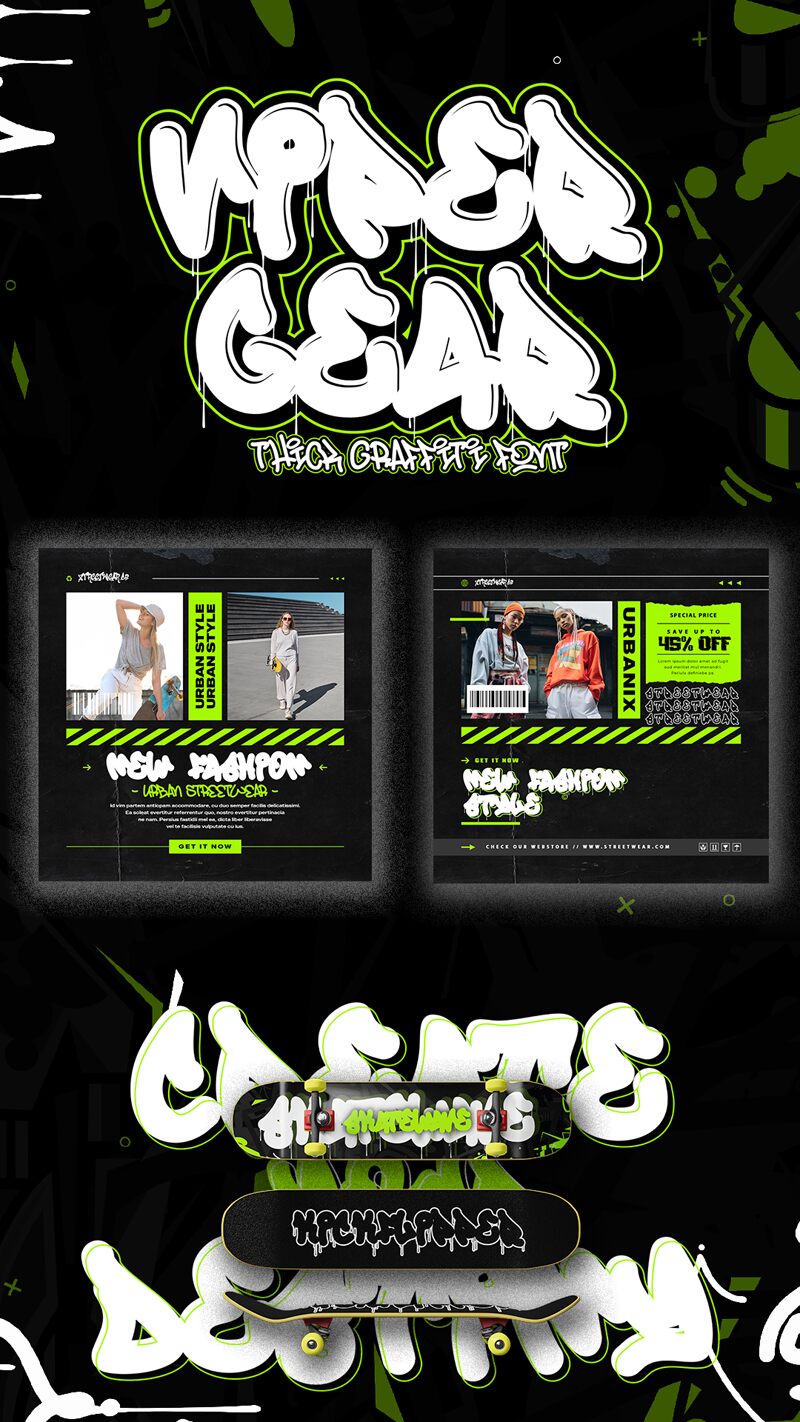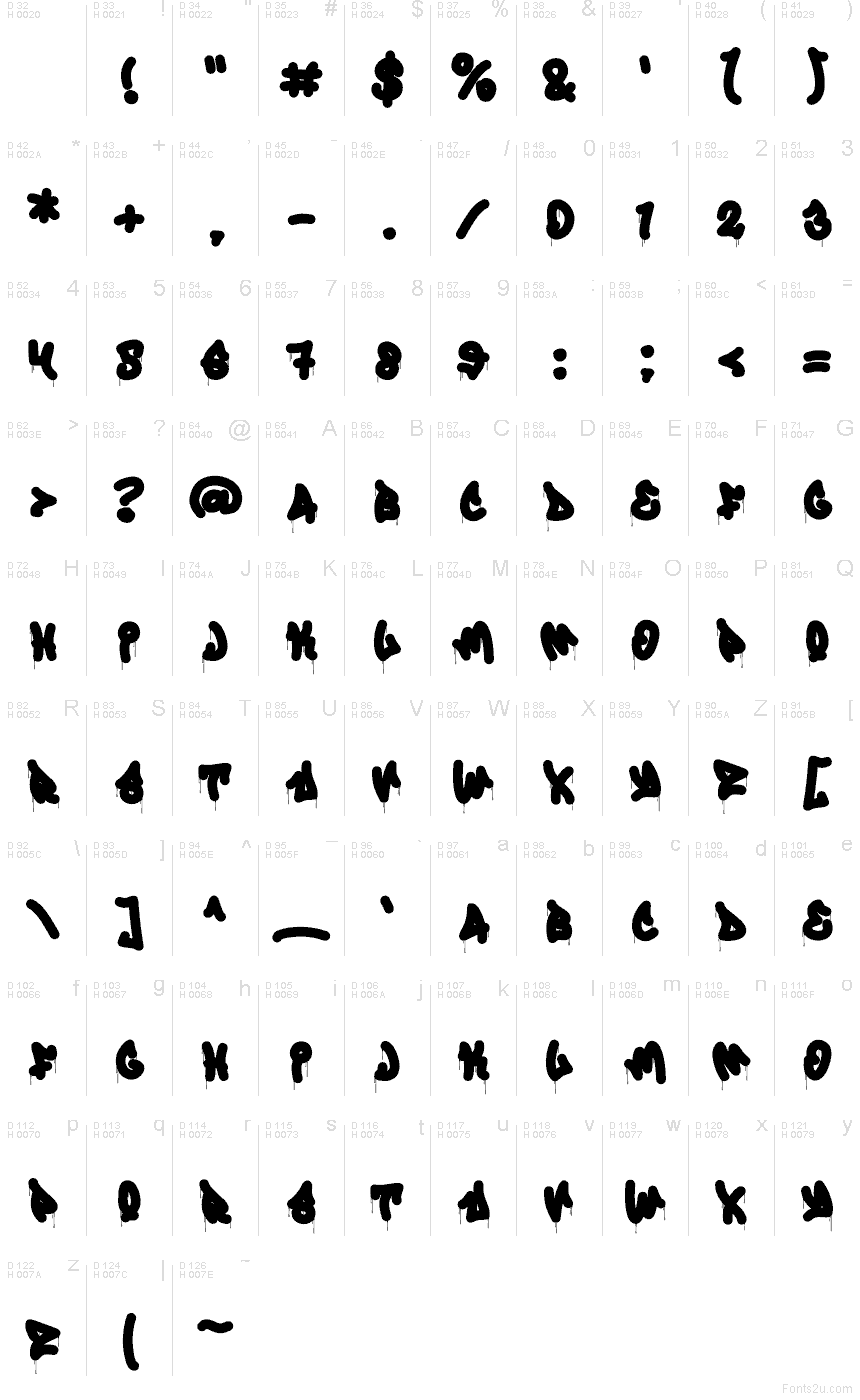
Viper Gear - Drip
Viper Gear - Drip font by Cikareotype Studio is a free graffiti font that hits like fresh paint on a concrete wall. Thick, blobby letterforms swell into each other, while inky drips slide down as if the tag was just sprayed and left to run. The heavy black shapes create a dense, rebellious texture that feels raw, loud, and unapologetically urban, giving digital layouts the same rush as a back-alley mural.
Using Viper Gear - Drip, this free font shines on streetwear branding, album covers, event posters, YouTube thumbnails, stickers, and game titles that need a gritty, underground edge. Its bold massing reads best at large sizes where the drips and overlaps can really show off. For supporting text, pair it with a clean, narrow sans serif to keep the chaos focused while Viper Gear handles the attitude.